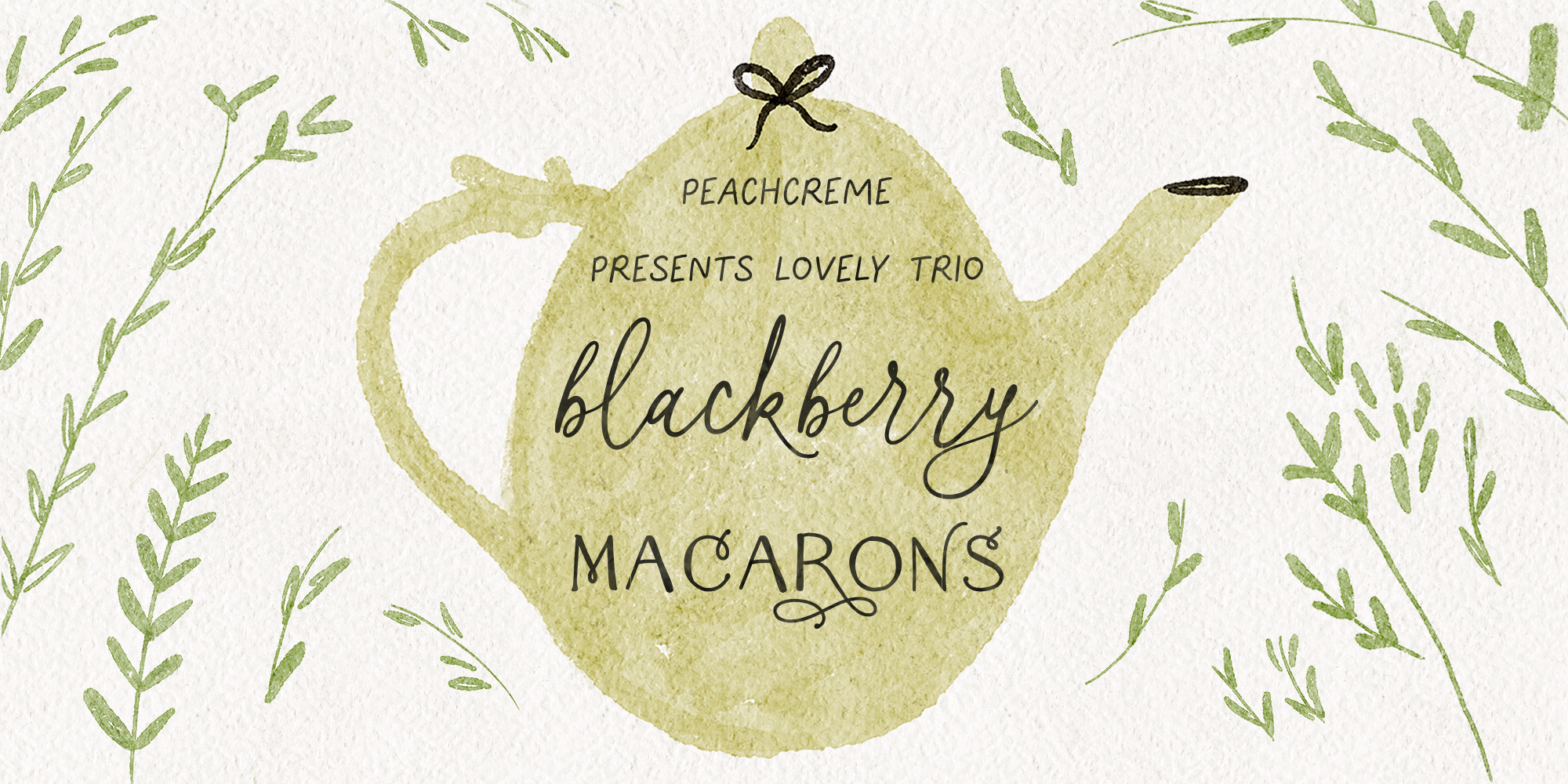
Blackberry Macarons Font is a charming and delectable script typeface that perfectly embodies the sweetness and elegance of its namesake confection. Its delicate, flowing lines and handcrafted appeal make it an exceptional choice for projects aiming to convey warmth, sophistication, and a touch of gourmet charm. Imagine it perfect for boutique bakery branding, elegant wedding invitations, artisanal product packaging (especially for desserts or confections!), heartwarming greeting cards, sophisticated social media graphics, and unique custom merchandise. This font excels in environments where a sense of bespoke quality, romantic allure, and refined artistry are paramount. It’s particularly effective for conveying sincerity and a memorable aesthetic, ensuring your message not only stands out but also resonates with an irresistible grace and personal appeal.
What makes Blackberry Macarons Font truly exciting is its ability to infuse designs with a sense of authentic beauty and an inviting, whimsical touch. It often features subtle swashes, ligatures, and stylistic alternates that mimic genuine calligraphy, giving each character a unique, almost bespoke feel. This font isn't just about displaying text; it's about telling a story with elegance and warmth, injecting your designs with a sense of personal connection and undeniable charm. It has a powerful ability to feel both incredibly luxurious and surprisingly versatile, making it an ideal tool for designers who want their work to convey sophistication, sentiment, and a truly memorable visual impact. Blackberry Macarons Font empowers brands and creatives to project an image that is refined, authentic, and full of heartfelt artistry.
The Blackberry Macarons Font family typically offers a range of options to enhance its versatility and expressive capabilities. You'll often find it available in a strong, elegant regular weight, with some versions including stylistic alternatives for certain characters, ligatures, or a set of swashes that further emphasize its handcrafted appeal and allow for more customized typographic compositions. The comprehensive character set generally covers standard Latin characters, numbers, and a selection of punctuation marks, ensuring that Blackberry Macarons Font Free Download is suitable for a wide variety of creative and commercial applications. Its distinctive and memorable presence ensures that any project featuring Blackberry Macarons Font will leave a strong, lasting impression.